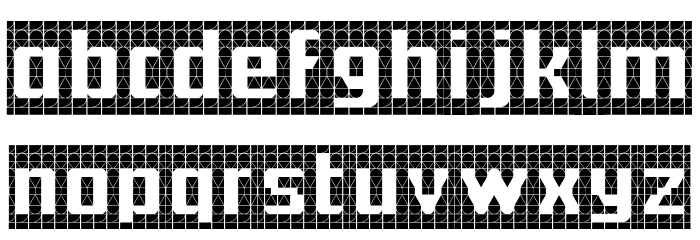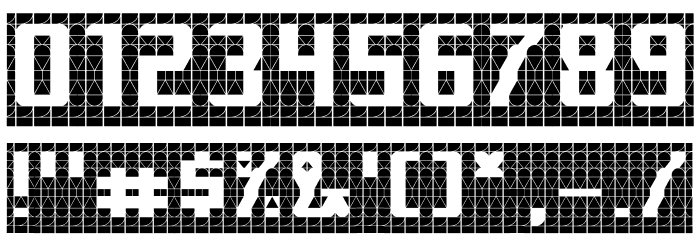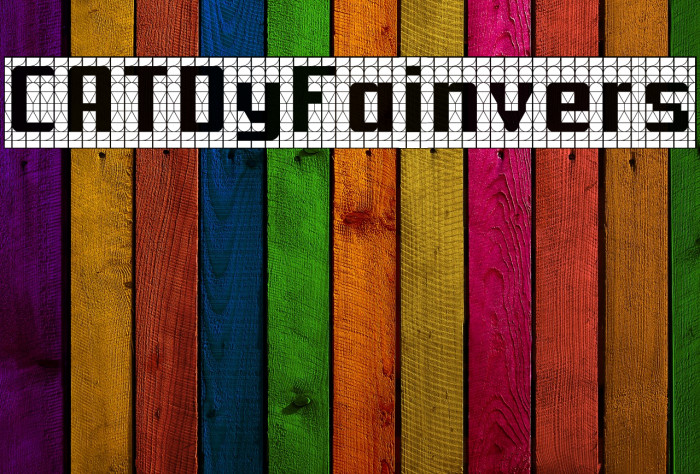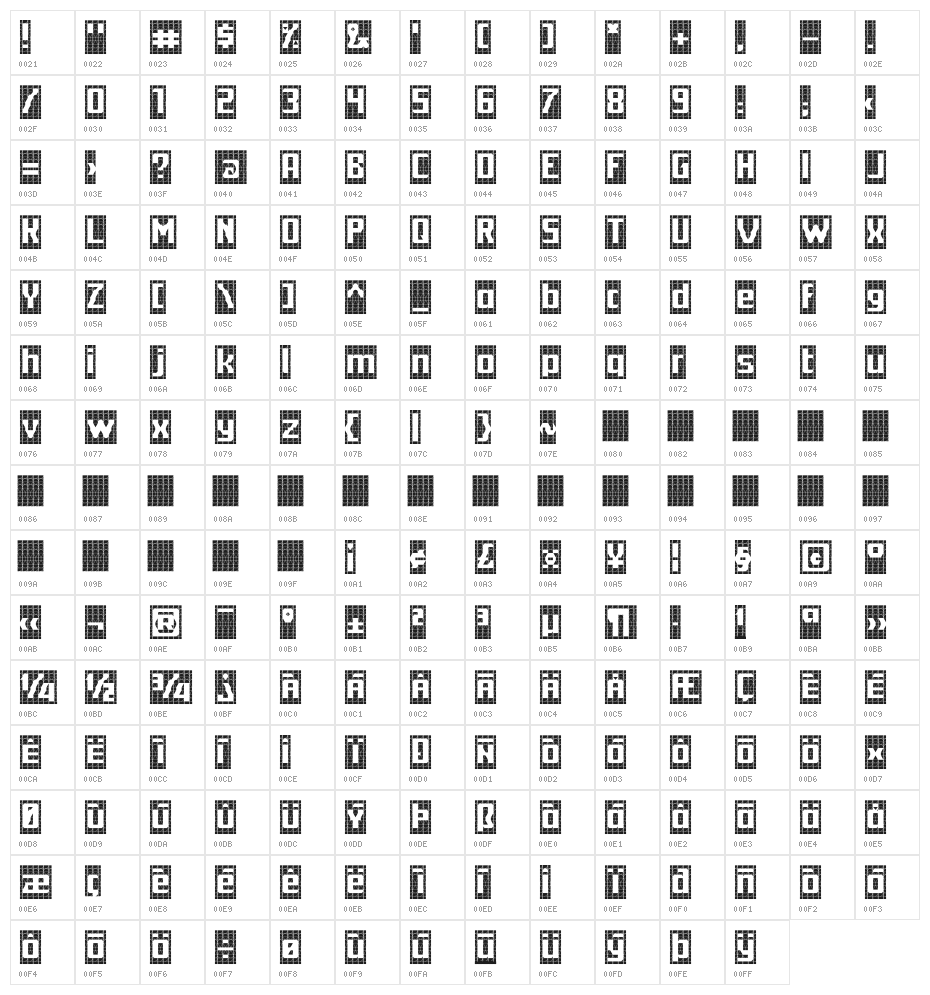
CATDyFainvers Font
This font features a geometric and grid-based design, characterized by its bold and angular letterforms. Each character is constructed with a consistent use of straight lines and sharp angles, creating a futuristic and digital appearance. The uppercase and lowercase letters maintain a uniform height, contributing to a cohesive and structured look. The numerals and special characters follow the same design principles, ensuring visual harmony across all elements. The font's unique style is reminiscent of digital displays or architectural blueprints, making it stand out in modern and tech-oriented applications.
A geometric, grid-based font with bold, angular letterforms and a futuristic style.
- Proposed Projects: Ideal for tech branding, digital interfaces, architectural designs, and modern art projects.
- Use Case: Headlines, Logos, Digital Displays